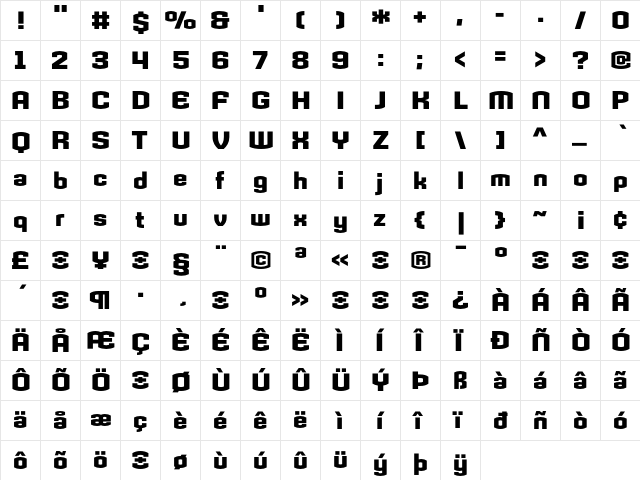
Armada Bold
Design Context for Armada Typeface
Armada is a composed and adaptable typeface that performs quietly and consistently across a wide range of design contexts. The heavy weight commands attention and anchors typographic hierarchies.